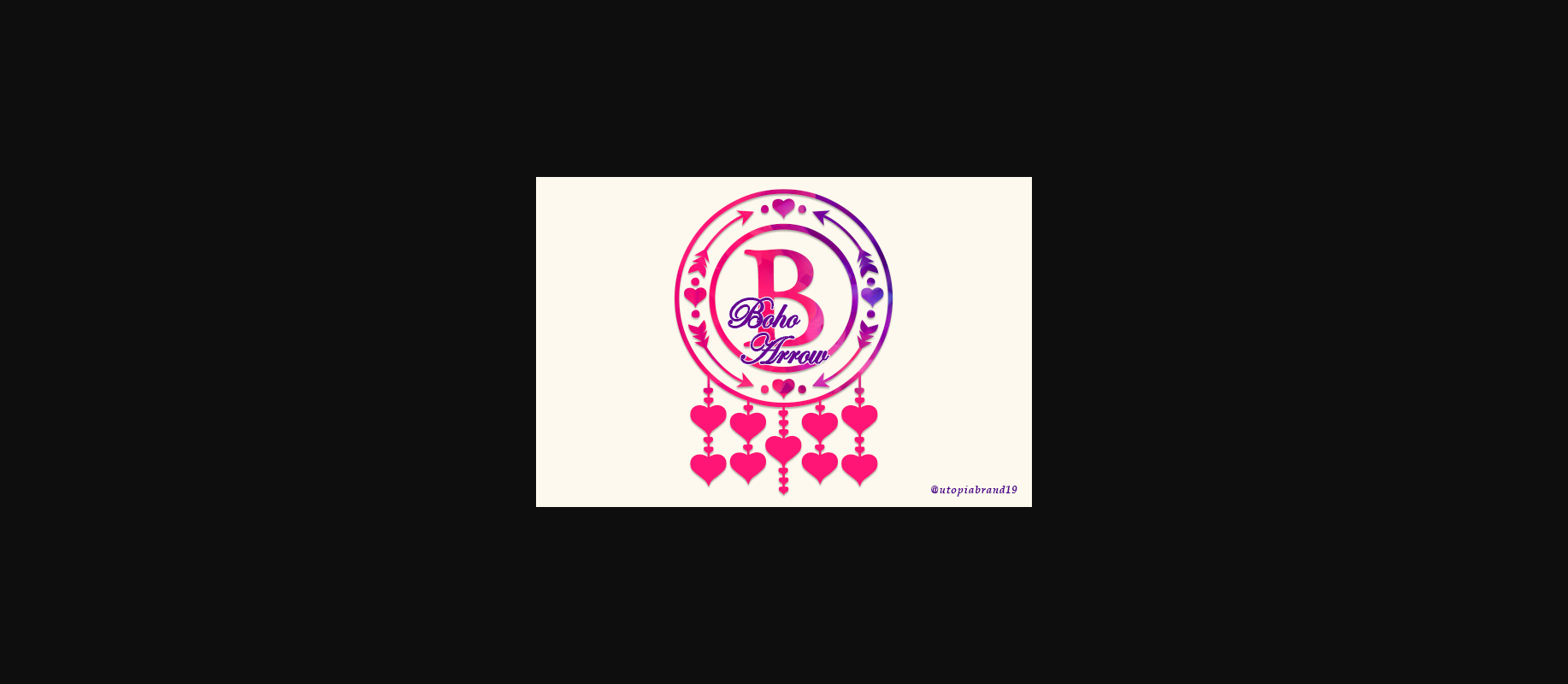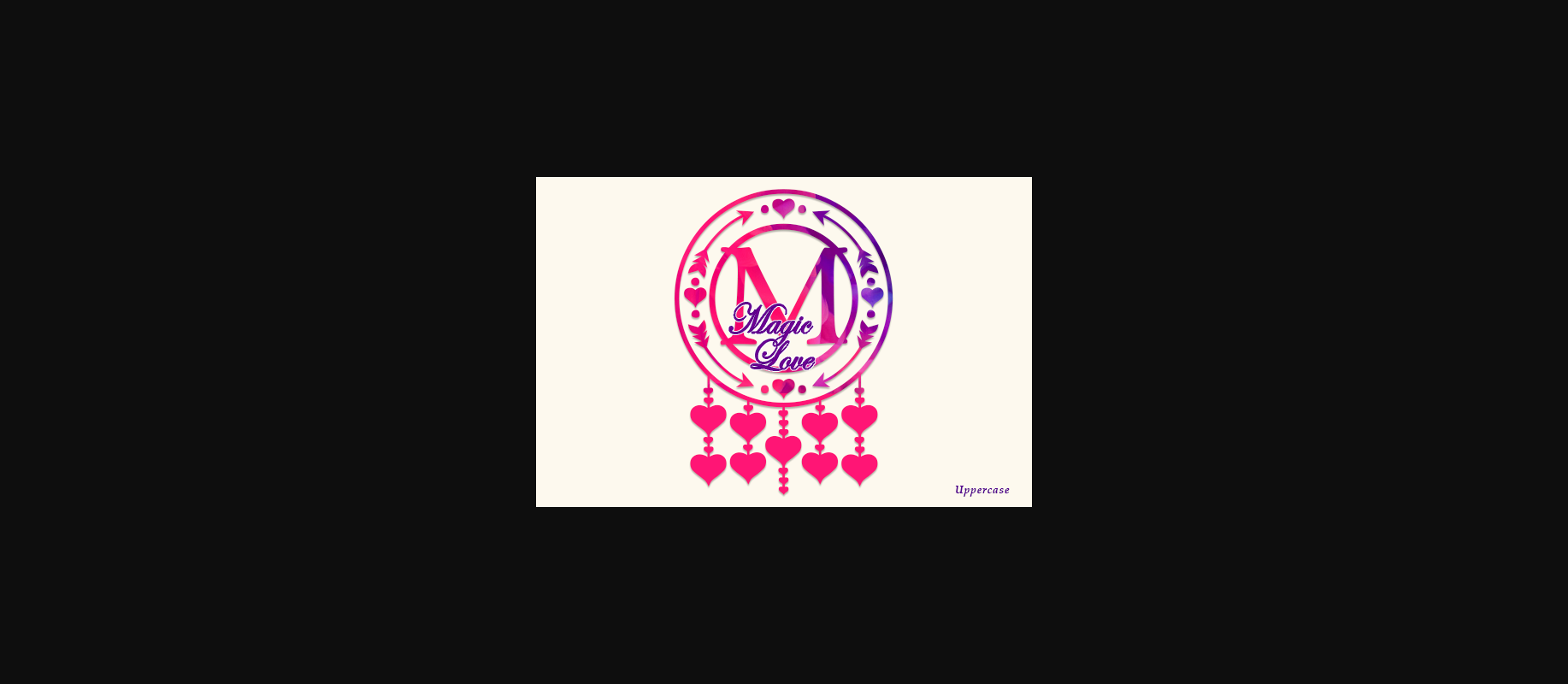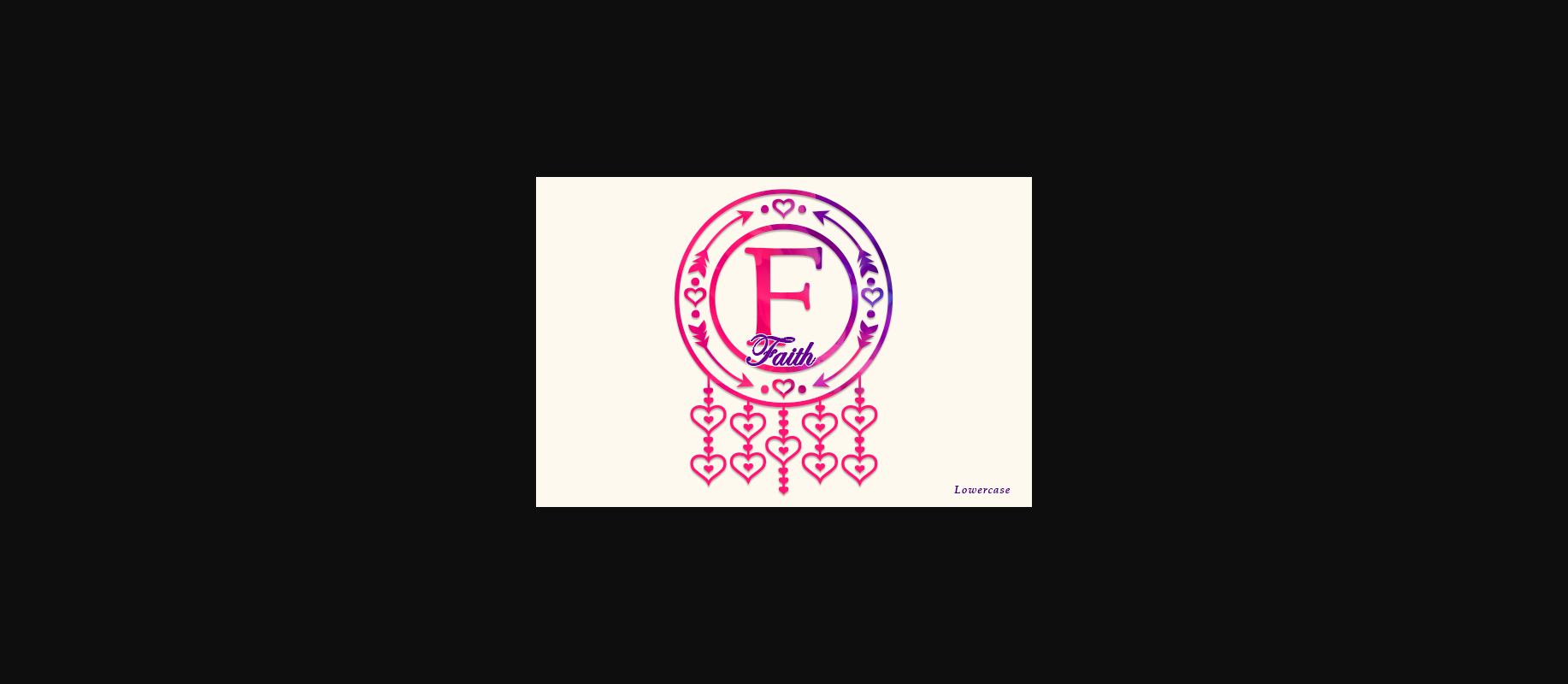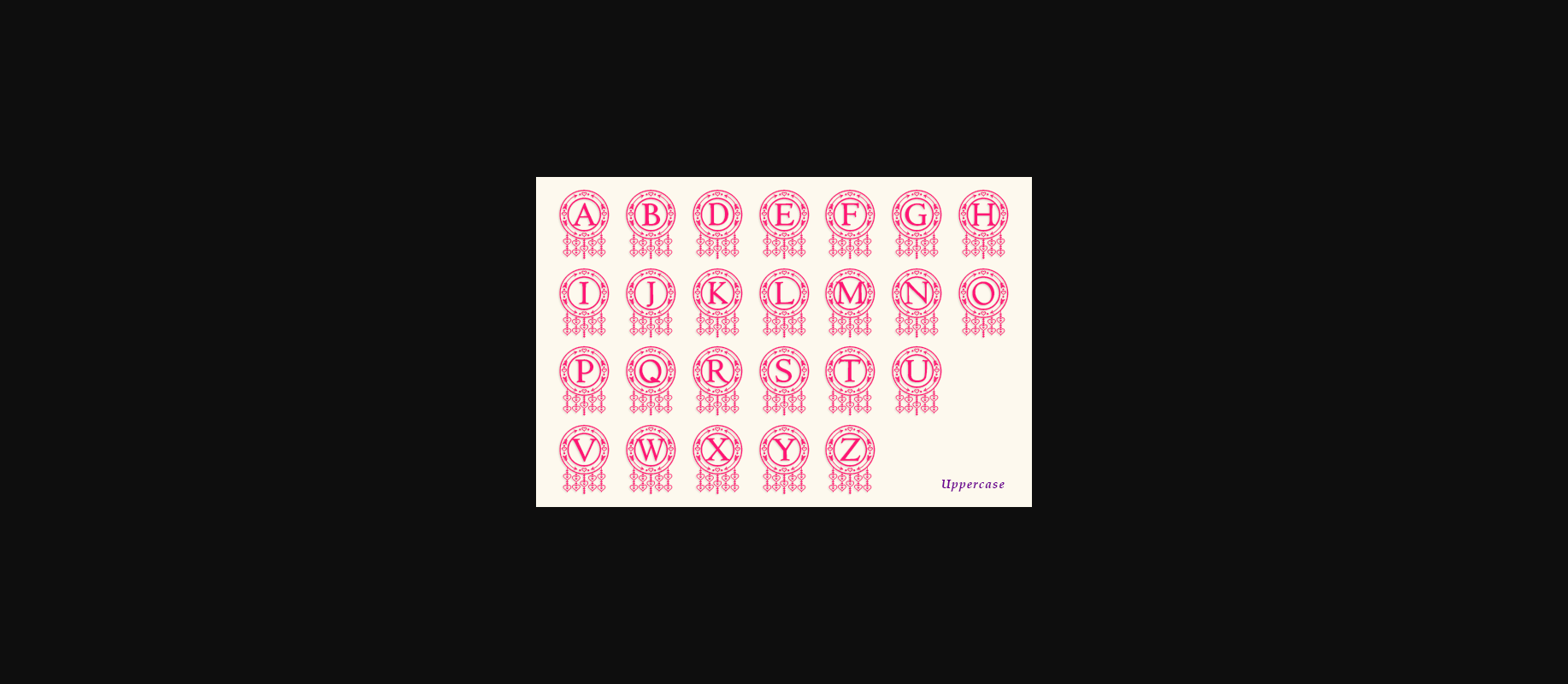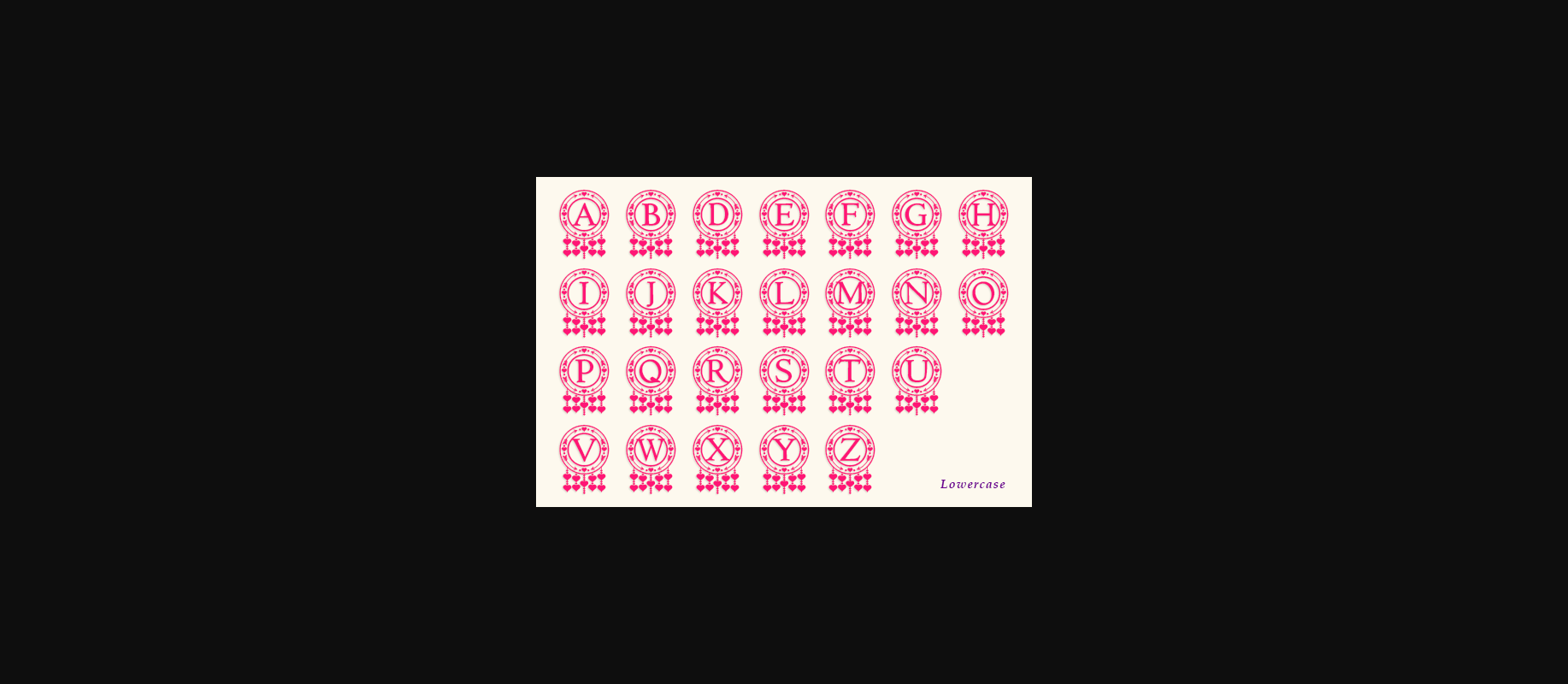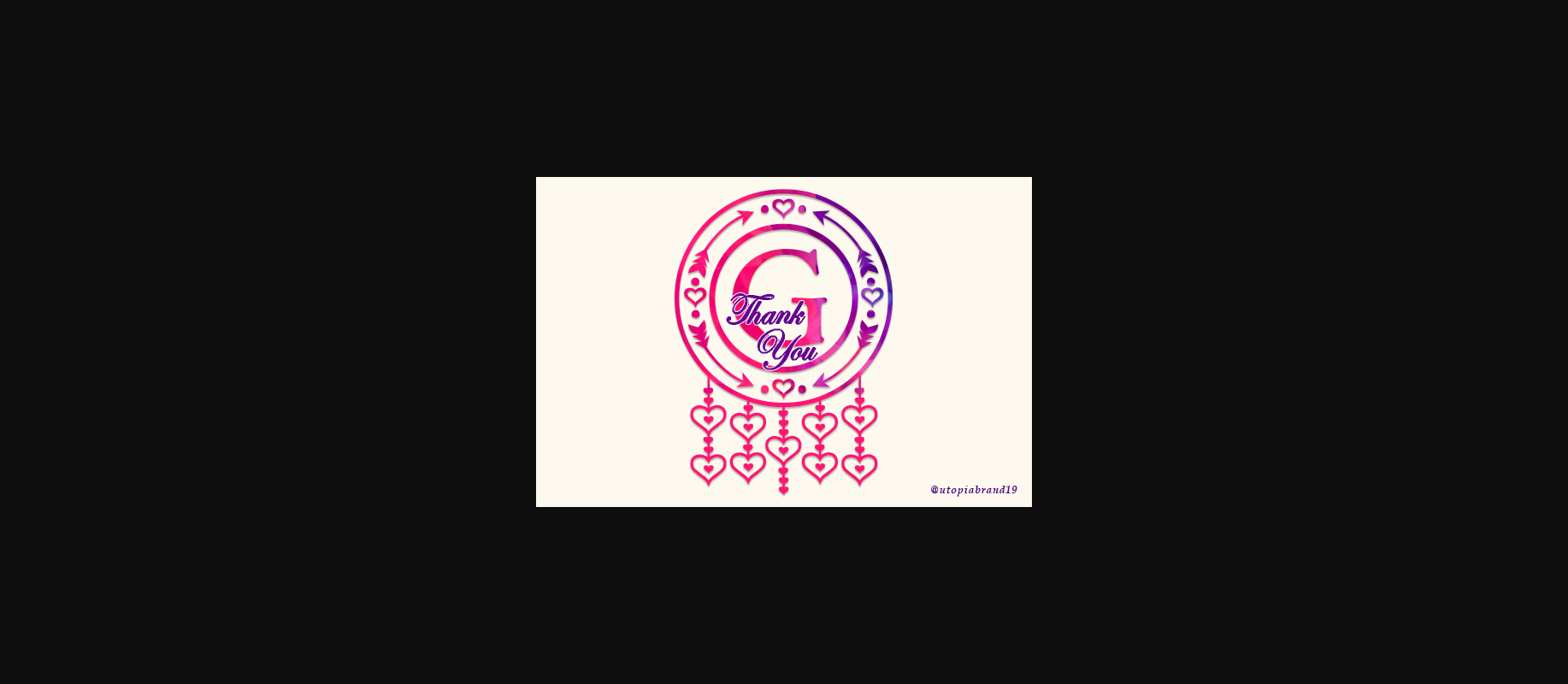
Boho Arrow Monogram Font
About Boho Arrow Monogram Font
Boho Arrow Monogram is a charming and unique decorative font. Add this magical looking font to each of your letters, wedding invitations or favorite design ideas, and you will be astounded by the outcome.